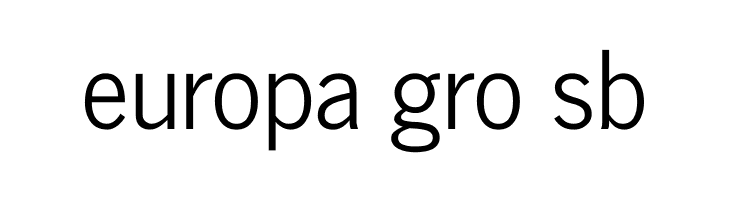
A hand-drawn, sketch-style font with playful, irregular strokes.
An ornate Gothic font with elaborate flourishes and bold, dramatic strokes.
A playful, handwritten font with a crayon-like appearance.
A playful, bold, hand-drawn font with thick outlines and a cartoonish style.
A ruler-themed font with bold, precise characters and measurement markings.
A bold, textured decorative font with a vintage, handcrafted feel.
A playful handwritten font with a pencil sketch style.
A bold, edgy font inspired by urban street art and skate culture.
A playful and romantic cursive script font with elegant, flowing strokes.
A playful handwritten font with a whimsical and casual style.
A bold, modern font with a sleek and slightly condensed design.
A bold, playful handwritten font with thick strokes and a casual feel.
A playful, bold, and whimsical font with a hand-drawn aesthetic.
A playful, brush-style font with bold, irregular strokes.
A bold, hand-painted font with textured, brush-like strokes.
A pixelated, retro-style font with a blocky, geometric design.
A playful handwritten font with heart embellishments and rounded edges.
A bold, handwritten font with playful, rounded strokes and a friendly appearance.
A bold, decorative font with heart motifs for a playful, romantic style.
A playful, heart-themed decorative font with bold, whimsical characters.
A decorative font made of hearts and crosses, perfect for romantic themes.
A bold, geometric monospaced font with uniform character spacing.
A modern, monospaced font with consistent stroke weight and geometric design.
A monospaced font with a geometric and technical style.
A bold, gothic-inspired font with sharp, angular characters.
A playful, hand-drawn font with a doodle-like, textured style.
A playful, bold, and hand-drawn font with a whimsical touch.